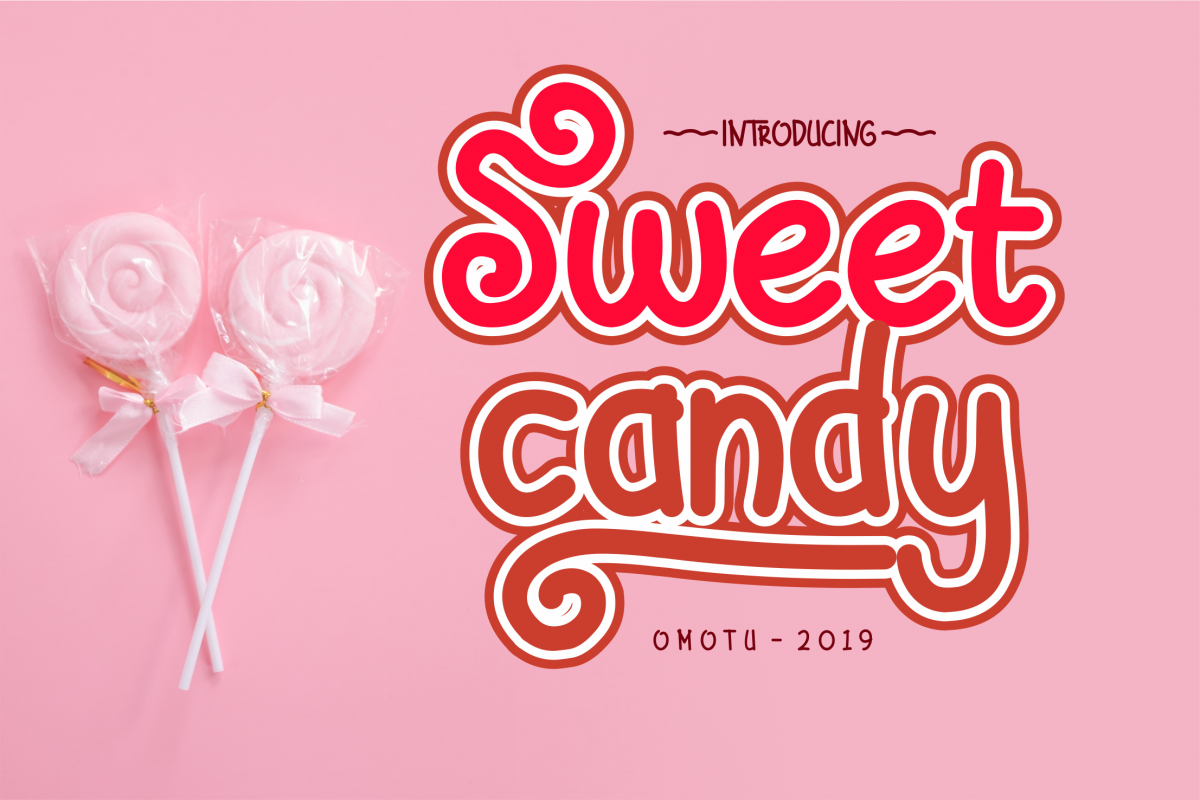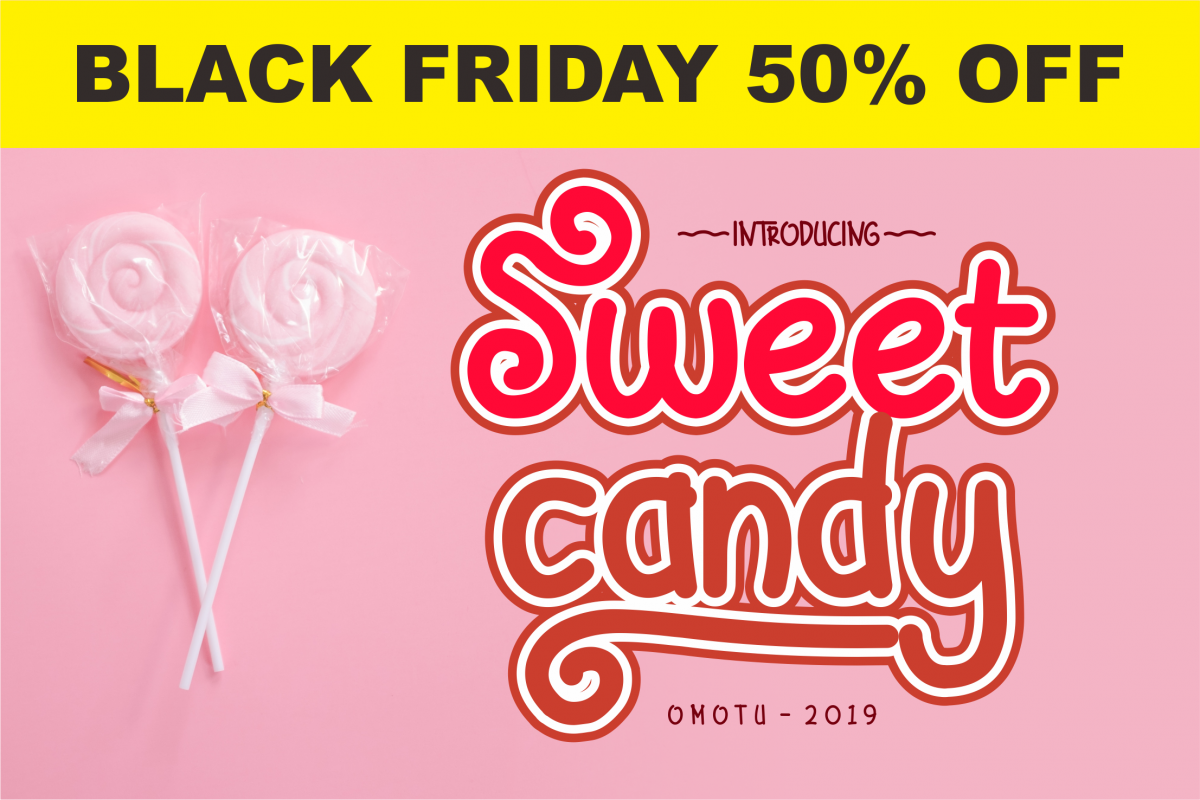
Created By Omotu
Sweet Candy
Sweet Candy fun fonts. Can be applied to many of your precious moments. Equipped with multilanguage and opentype, don't forget there are also alternative letters and ligature that make this font so fun.
Sweet Candy suitable for posters, watermark, social media posts, advertisements, logos & branding, product designs, label, stationery, games, packaging, invitations, product packaging, and more.